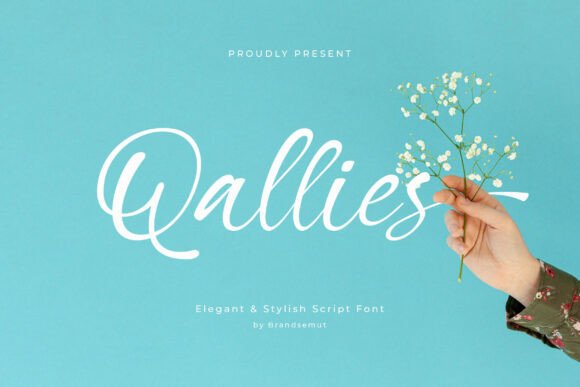
Qallies Font: An Elegant Handwritten Script for Modern Branding & Design
About the Qallies Font
The Qallies Font is here to transform your projects with its distinctive character and style. Introducing the new Qallies Script Font, an elegant and stylish handwritten script that you can use to perfect your design.
You will get a full set of lowercase and uppercase letters, multilingual, numerals, and punctuation.
Qallies excels in applications requiring a touch of refined elegance, such as logotypes for high-end brands, wedding invitations, or short-form editorial pieces. Its graceful curves lend themselves well to headlines and short text blocks on packaging or posters. However, due to its script nature, it’s less suitable for body text or lengthy paragraphs, and would be problematic for UI elements requiring high legibility.
For optimal visual harmony, pair Qallies with a clean sans-serif like Montserrat for a modern feel, or a classic serif such as Garamond for a more timeless aesthetic. A geometric sans-serif, such as Futura, could also create a striking contrast, while a simple, neutral sans-serif would provide a versatile, balanced pairing for varied applications.
The overall personality of Qallies is sophisticated and graceful, conveying a sense of understated luxury and charm. It’s ideal for projects aiming for a feeling of timeless elegance or romantic appeal.
Qallies Font Usage Examples
Qallies Font Example